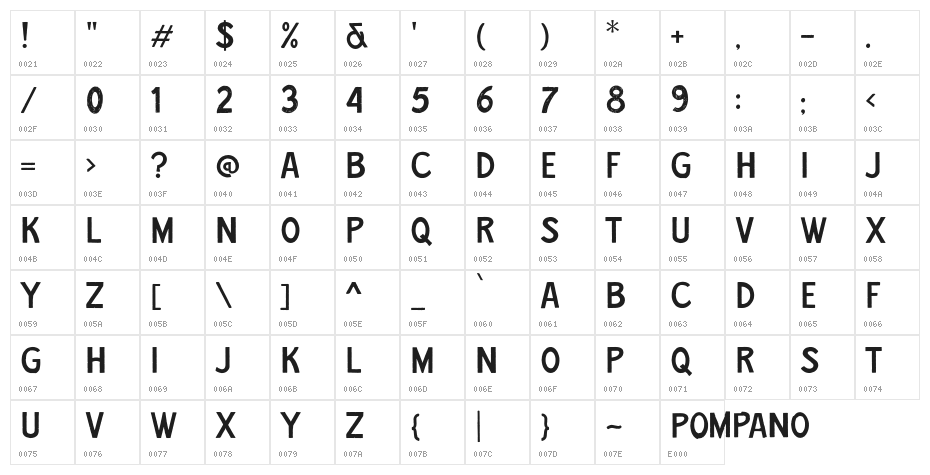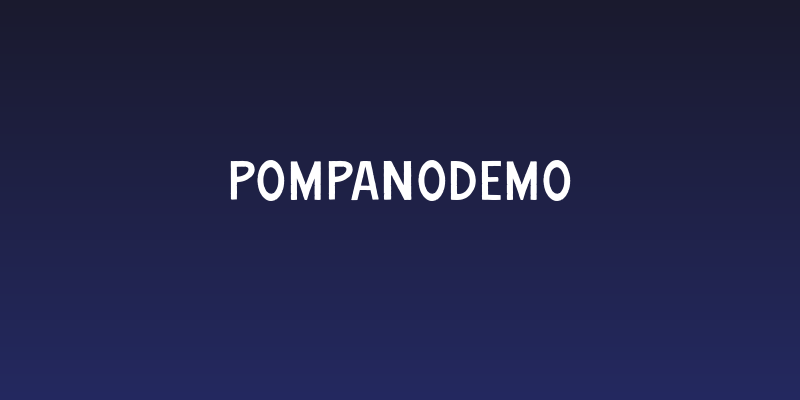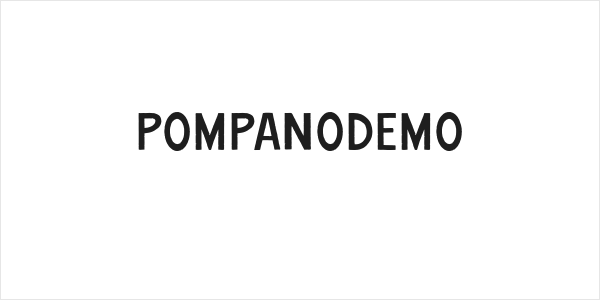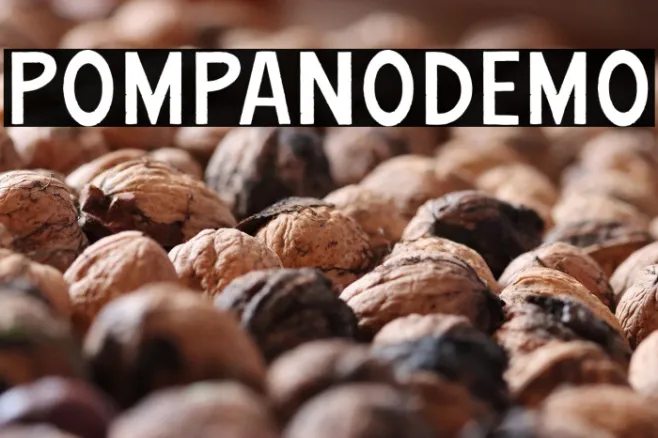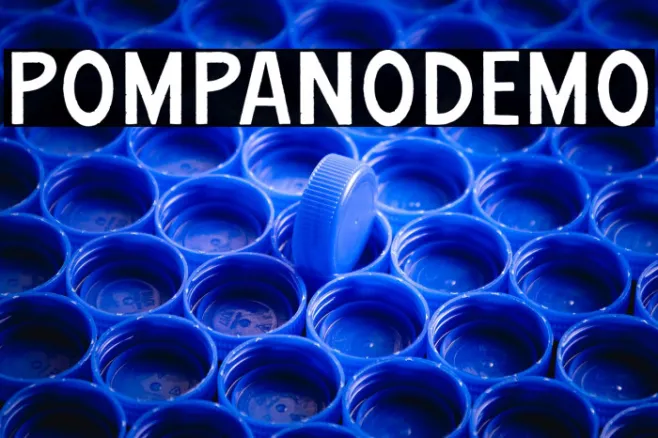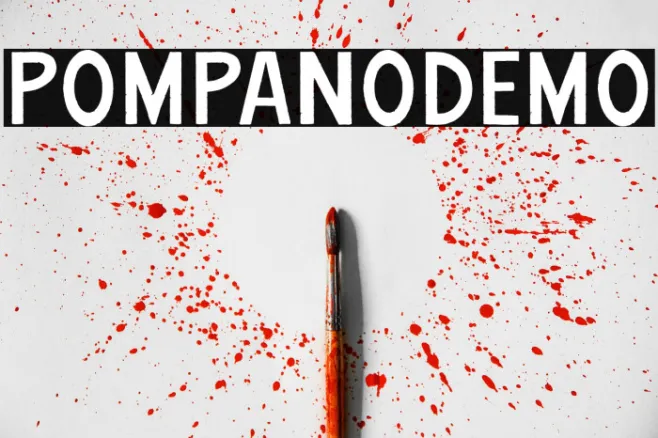
PompanoDEMO Font
PompanoDEMO Description
This font features a bold, textured appearance with a hand-drawn quality, giving it a rustic and organic feel. The uppercase and lowercase letters maintain a consistent style, with slightly irregular edges that add character and uniqueness. The numerals and special characters follow the same design, ensuring uniformity across all glyphs. The font's boldness makes it stand out, while the textured details provide a sense of depth and personality. It's ideal for projects that require a touch of authenticity and creativity.
| Overall Style | Rustic, Handcrafted |
| Proposed Projects | Perfect for branding, posters, packaging, and any design needing a handcrafted touch. |